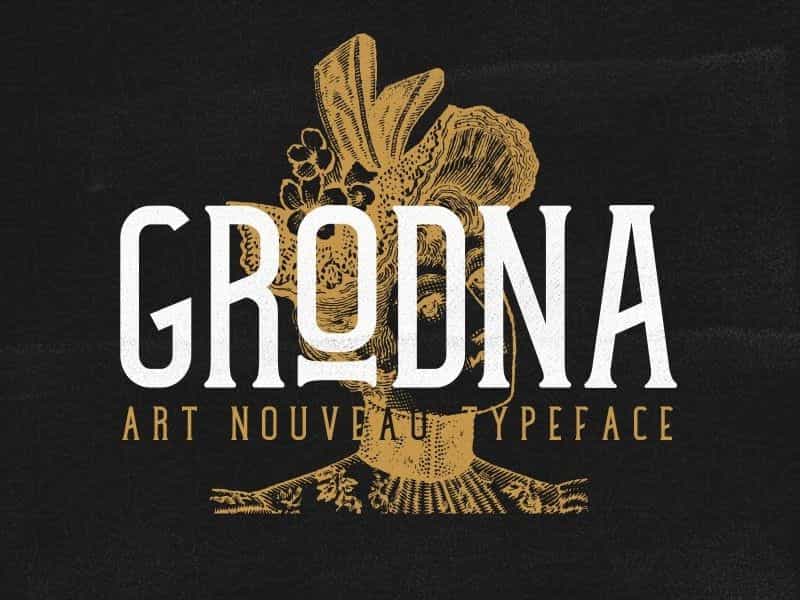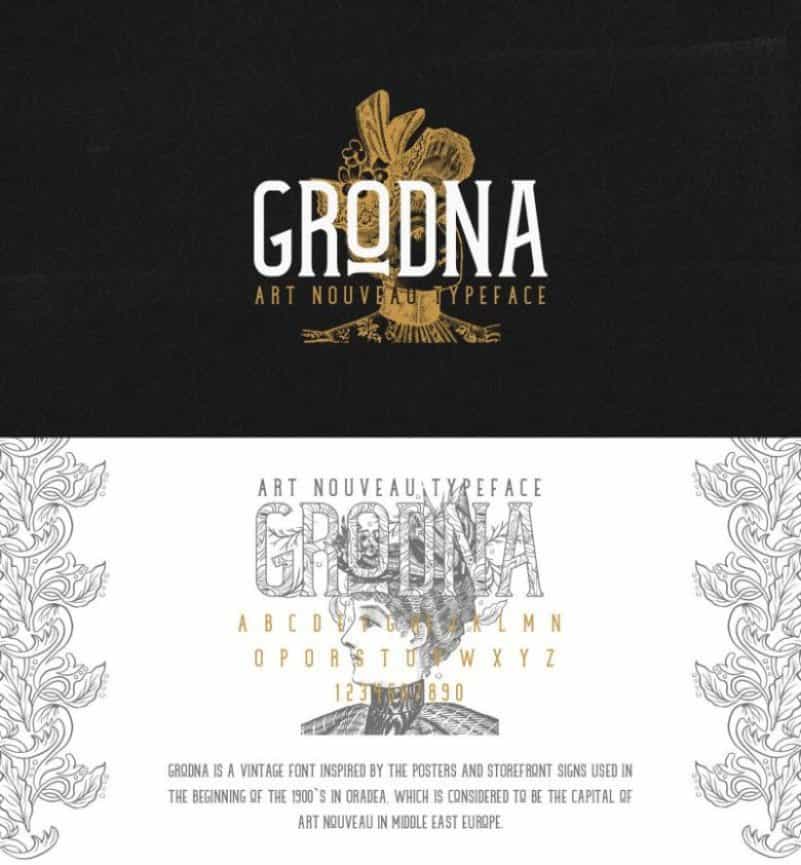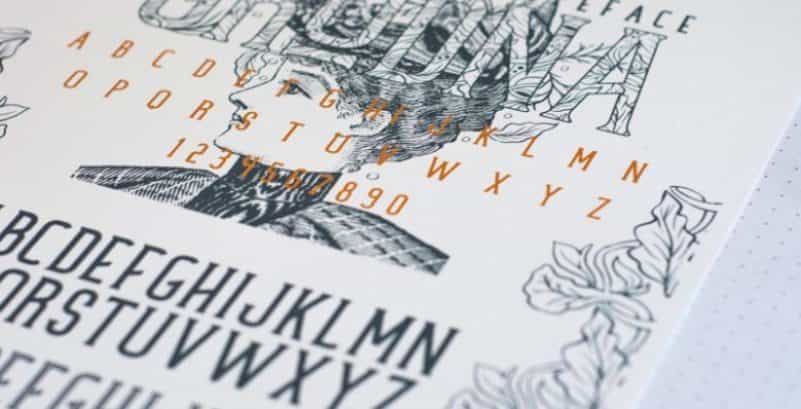
Presenting Grodna vintage serif font – lovely vintage typeface for your projects! It’s time to get your own vintage style – All these font files should be installed and used to create something. Grodna Vintage is a font that was inspired by the vintage posters that were in use at the beginning of the 1900`s in Oradea, this is a city that is believed to have the Centre of art Nouveau. It is thinner and elongated serif font with sharp brackets, short arms with the curved end.